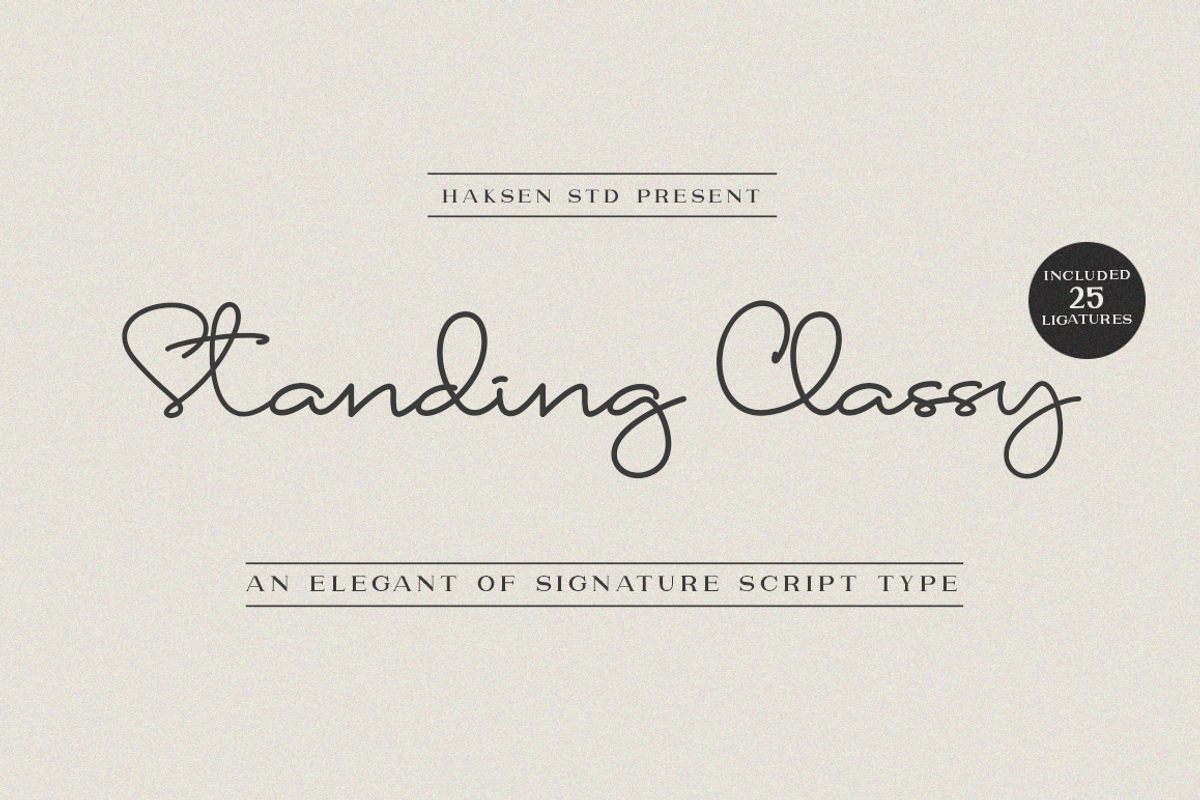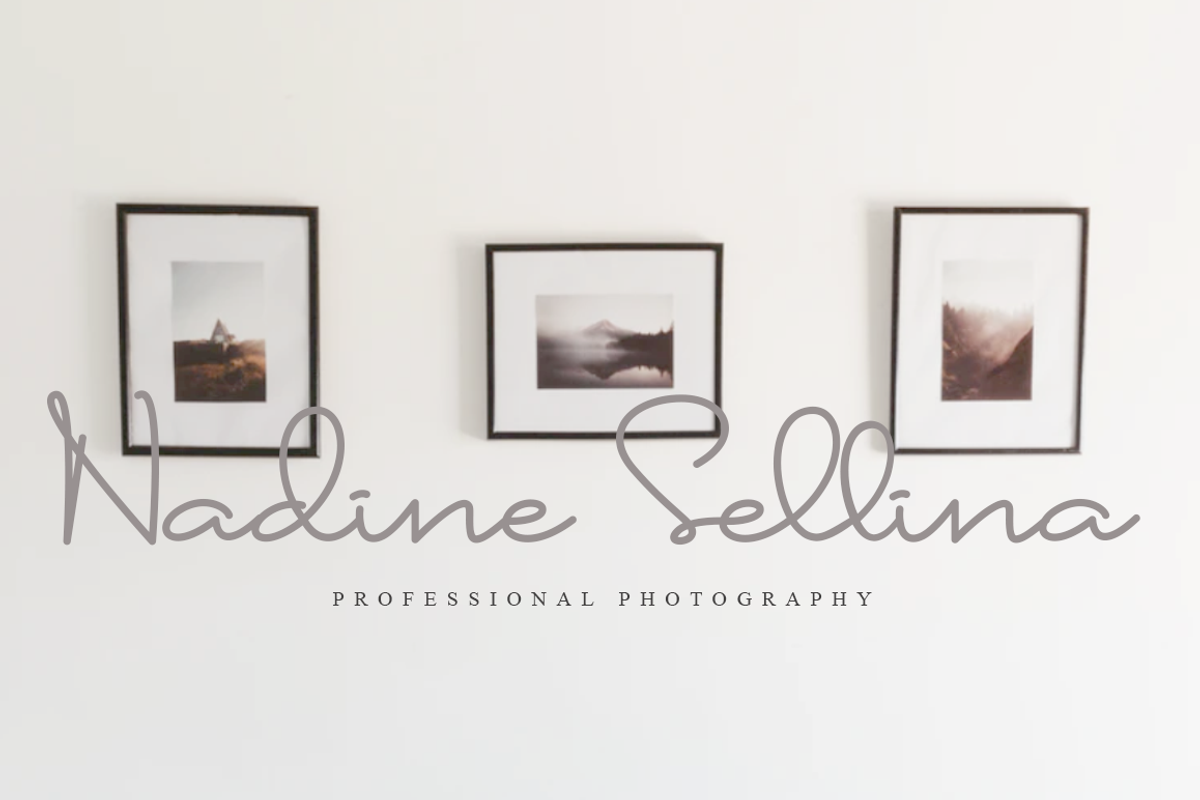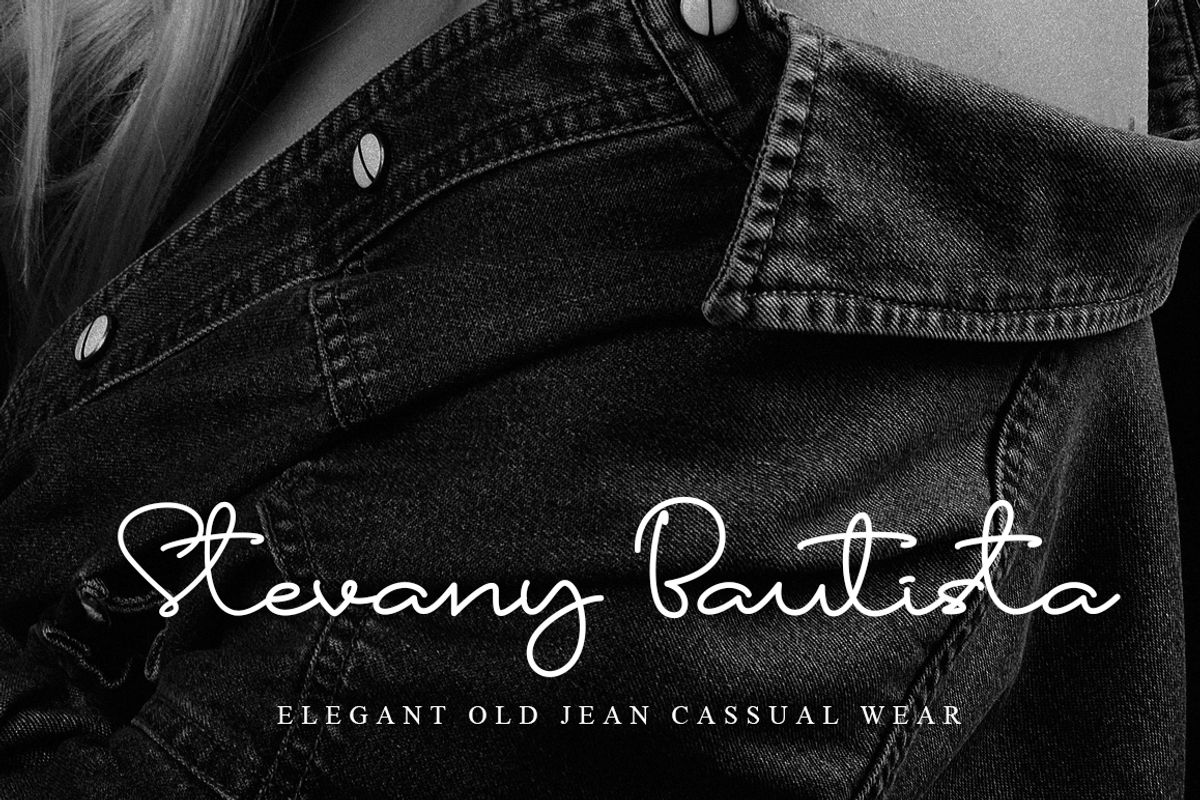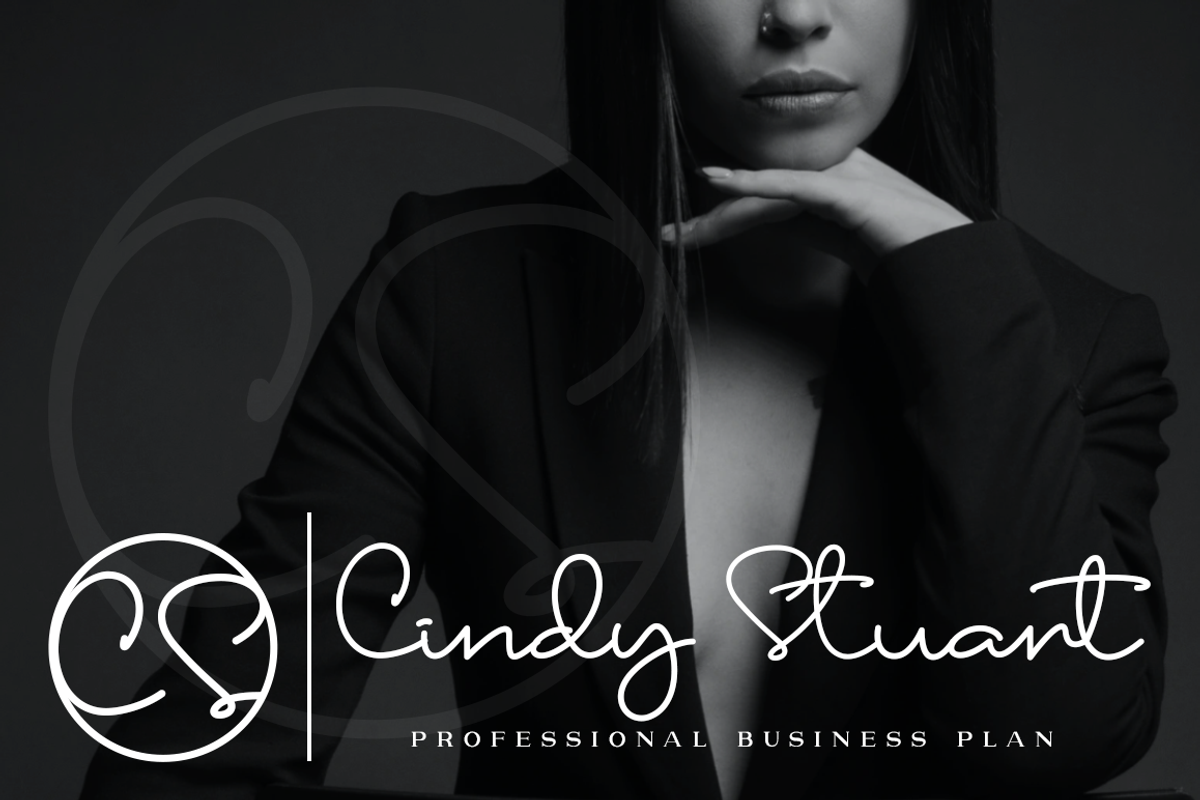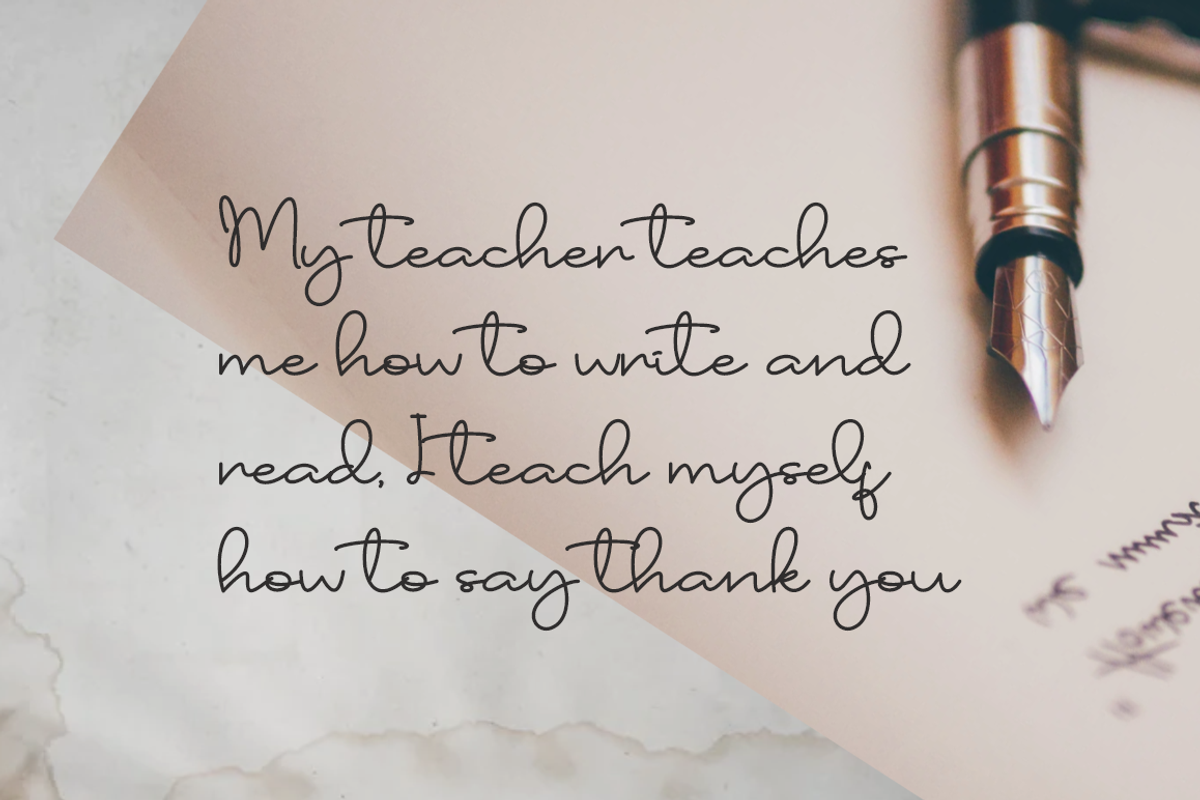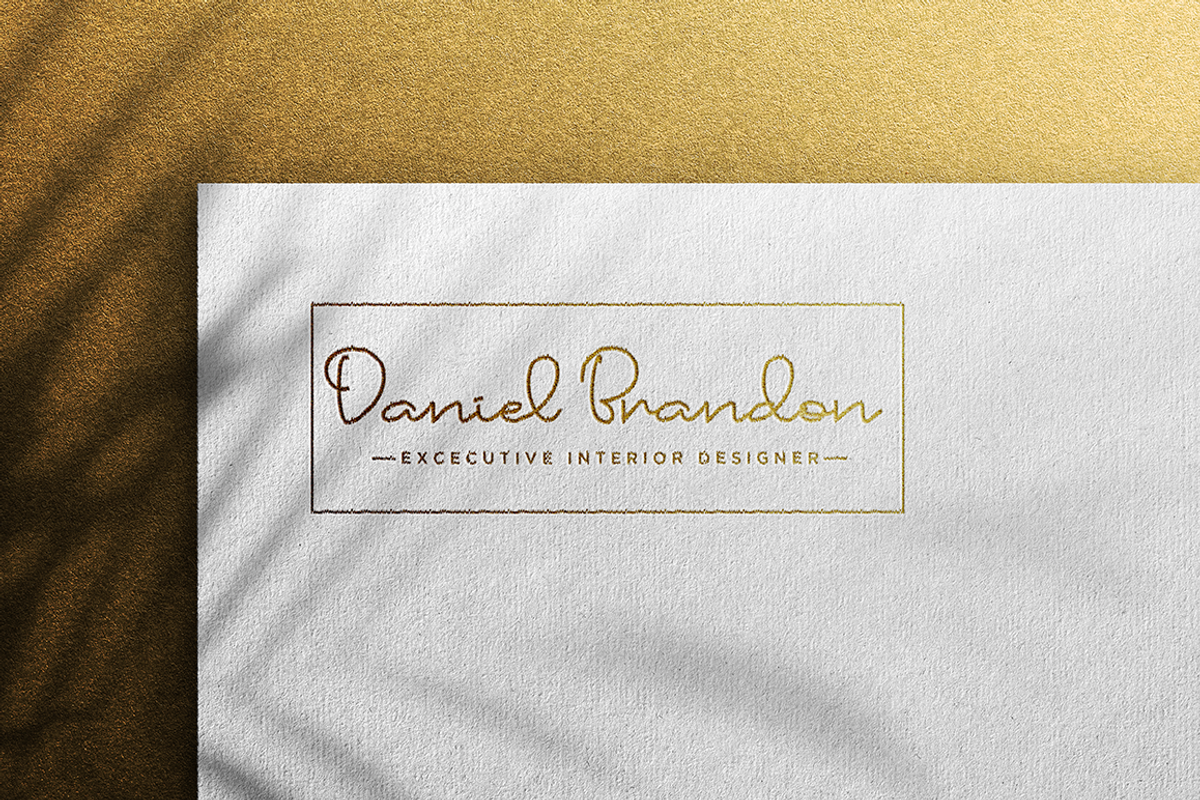
Standing Classy Script
Standing Classy is a font with a continuous handwritten script style. This font is perfect for both professional and branding needs of a product. As for print products like as business card, wedding invitation, posters, book cover and many more.
- Basic latin A-Z Standard Uppercase
- Basic latin a-z Standard Lowercase
- 14 Multilingual support
- Number & Punctuaton